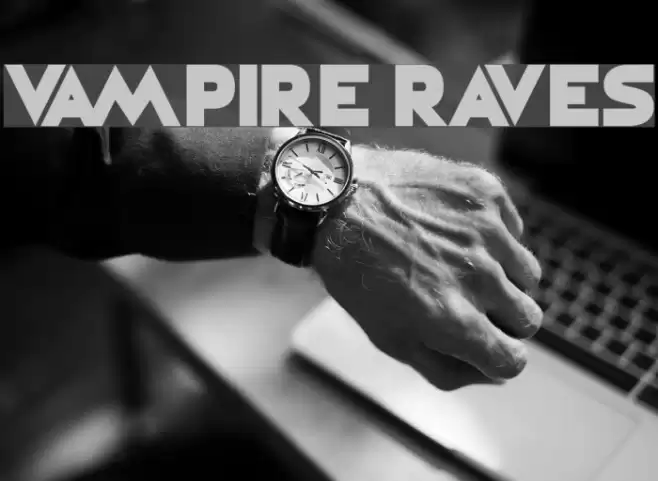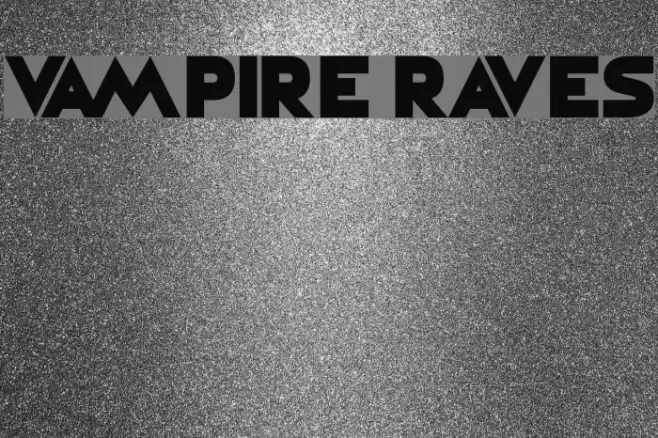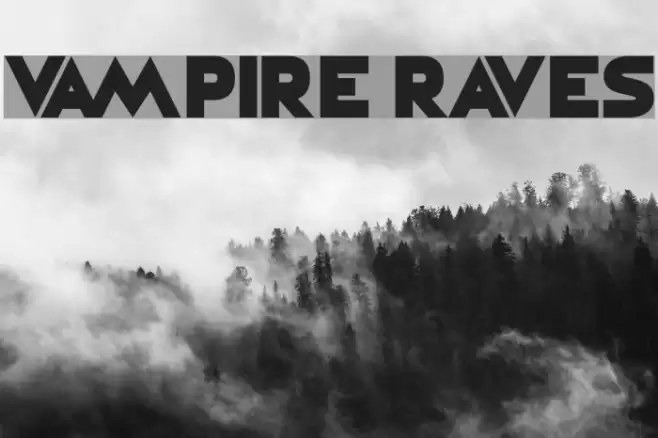
Vampire Raves Font
Vampire Raves Description
This font features a bold, geometric style with sharp angles and a modern aesthetic. The uppercase letters are particularly striking, with a consistent thickness that gives a strong, impactful appearance. The numbers and special characters maintain this boldness, ensuring a cohesive look across all characters. The design is clean and minimalistic, yet the angular cuts add a unique flair. This font is ideal for projects that require a strong visual presence and a contemporary feel.
A bold, geometric font with sharp angles and a modern aesthetic from Uncategorized fonts.
- Proposed Projects: Ideal for branding, posters, headlines, and any design requiring a strong visual impact.